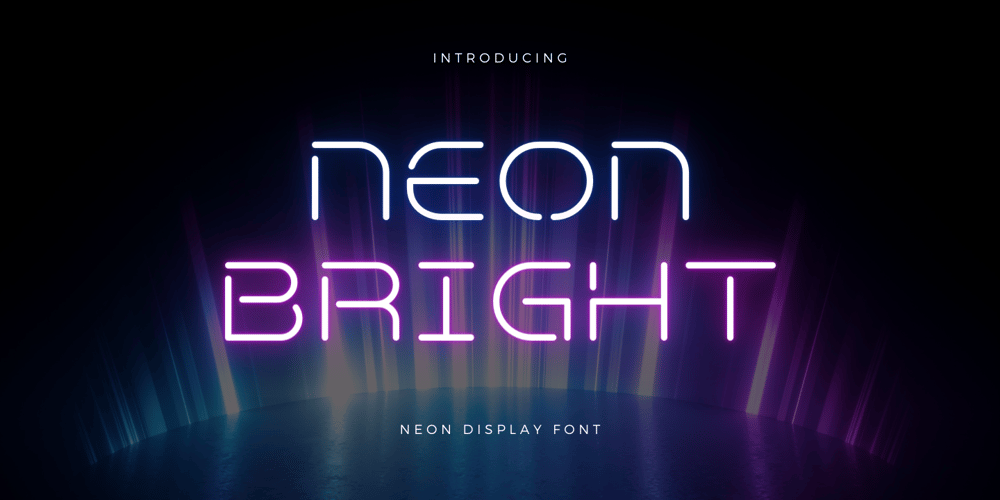
Neon Bright Font Family was designed by Muhamad Yusron Billah and published by Sronstudio. Neon Bright contains 1 styles and family package options. Introducing “Neon Bright,” a modern monoline font that dazzles with its vibrant neon glow. With its sleek and continuous strokes, this font captures the essence of contemporary neon signage. Perfect for projects that need a touch of futuristic flair, such as event posters, digital designs, or branding materials. “Neon Bright” ensures your designs shine with a luminous and stylish edge, making a striking impression in any setting.Features:- Upper & Lowercase- Numeral & Punctuation- PUA Encoded- Multilingual support- Simple Installation- Work both on Mac and WindowsFeel free to contact me with any questions 🙂Thank you very much 🙂